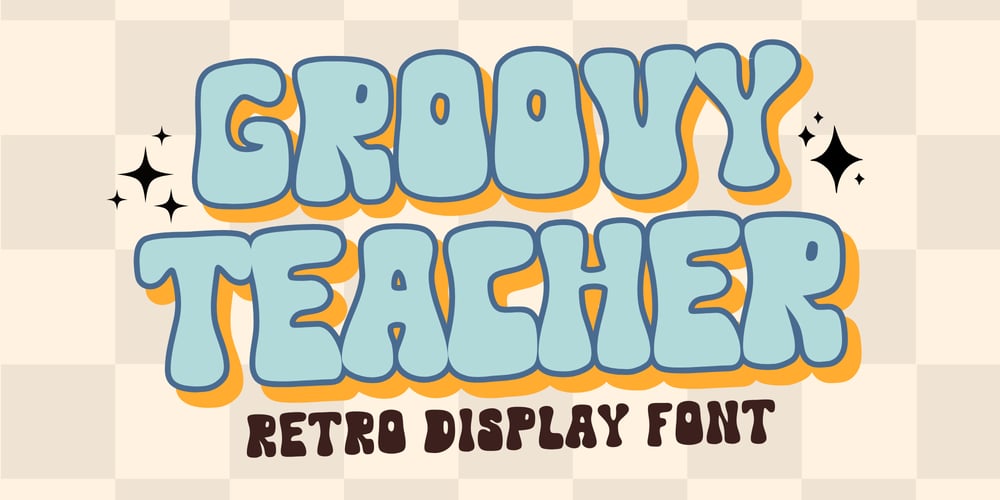
Groovy Teacher Font Family was designed by Nattha Potchanad and published by Brown Cupple Typeface. Groovy Teacher contains 1 styles and family package options. Groovy Teacher is a stylish retro groovy font. Ideal for all your hippie-inspired designs, It embodies playfulness and authenticity and is the perfect choice for all your favorite projects, or even for blog posts, logos, branding, ads, invitations, greeting cards, planners, photo albums, decorations, and much more. Add it to any of your designs, and enjoy the results!